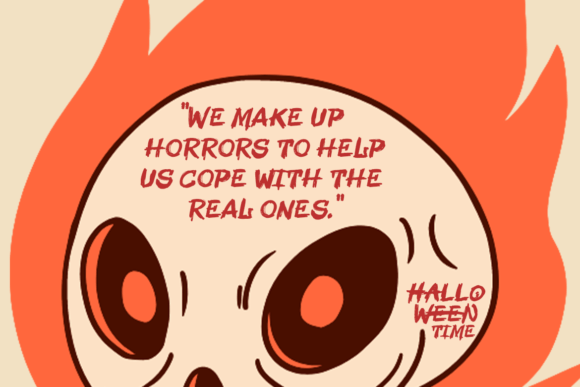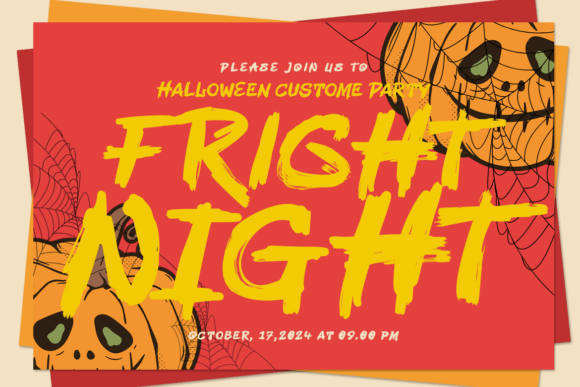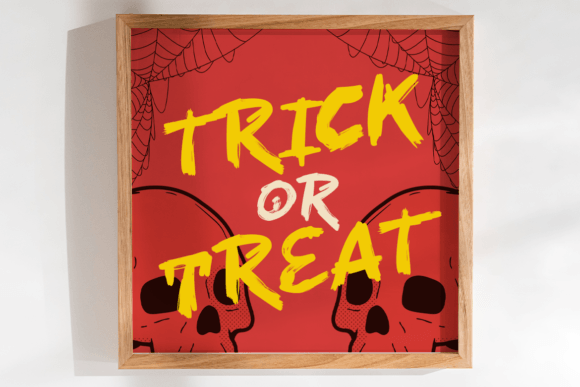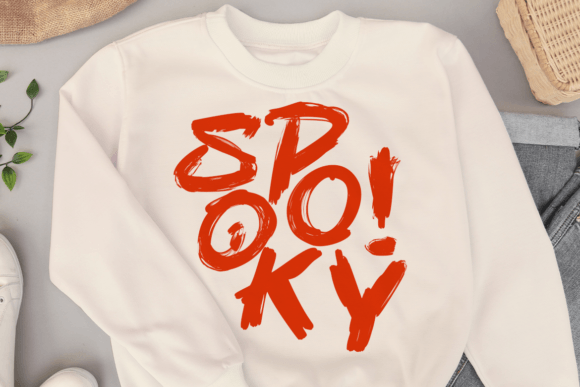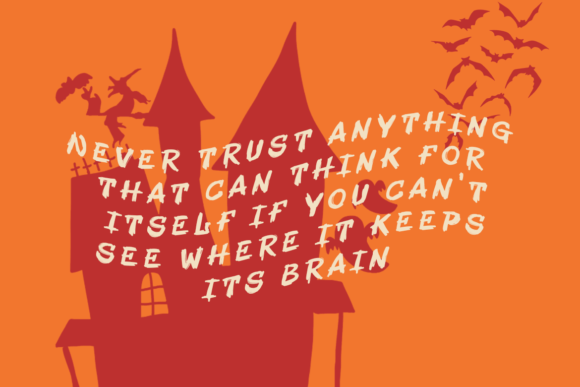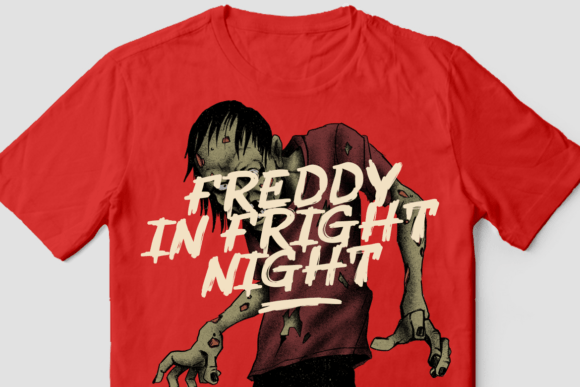
Corn Farm Font: The Spooky yet Captivating Display Font for Your Designs
Are you tired of using the same old fonts for your designs? Do you want to add a touch of uniqueness and intrigue to your creations? Look no further than the Corn Farm Font, an incredibly distinctive and fascinating display font that’s sure to make your designs stand out from the crowd.
The Unsettling Charm of Corn Farm Font
Corn Farm Font is not your average font. Its spooky and slightly creepy aesthetic is sure to evoke a sense of unease and fascination in your audience. With its irregular shapes and unconventional design, this font is perfect for designers and crafters who want to add a dash of quirkiness to their work.
Whether you’re designing a logo, a poster, or a social media graphic, Corn Farm Font is sure to grab attention and leave a lasting impression. Its unique character set and distinctive style make it an excellent choice for a wide range of design projects, from Halloween-themed designs to more abstract and artistic creations.
What Makes Corn Farm Font So Unique?
So, what sets Corn Farm Font apart from other display fonts on the market? Here are just a few of its standout features:
• Irregular shapes: Corn Farm Font features irregular shapes and unconventional letterforms that give it a distinctly unsettling charm.
• Hand-crafted feel: This font has a hand-crafted feel that’s perfect for designers who want to add a touch of personality to their work.
• Highly legible: Despite its unconventional design, Corn Farm Font is highly legible, making it perfect for use in a wide range of design projects.
• Extensive character set: This font features an extensive character set, including uppercase and lowercase letters, numbers, and punctuation marks.
How to Use Corn Farm Font in Your Designs
Now that we’ve covered the unique features of Corn Farm Font, let’s talk about how to use it in your designs. Here are a few ideas to get you started:
• Halloween-themed designs: Corn Farm Font is perfect for Halloween-themed designs, such as posters, flyers, and social media graphics.
• Horror and suspense designs: If you’re designing a logo or promotional materials for a horror or suspense-themed project, Corn Farm Font is an excellent choice.
• Abstract and artistic designs: This font is also perfect for more abstract and artistic designs, such as typographic posters and experimental graphics.
Tips for Getting the Most Out of Corn Farm Font
To get the most out of Corn Farm Font, here are a few tips to keep in mind:
• Use it sparingly: Because of its bold and attention-grabbing design, it’s best to use Corn Farm Font sparingly in your designs.
• Experiment with colors: This font looks great in a wide range of colors, so don’t be afraid to experiment and find the perfect hue for your design.
• Pair it with other fonts: Corn Farm Font pairs well with a wide range of other fonts, so feel free to get creative and experiment with different font combinations.
In conclusion, Corn Farm Font is an incredibly unique and interesting display font that’s sure to add a touch of spooky charm to your designs. With its irregular shapes, hand-crafted feel, and highly legible design, this font is perfect for designers and crafters who want to make their designs stand out from the crowd.
Whether you’re designing a Halloween-themed project or simply want to add a dash of quirkiness to your work, Corn Farm Font is an excellent choice. So why not give it a try and see how it can elevate your designs to the next level?